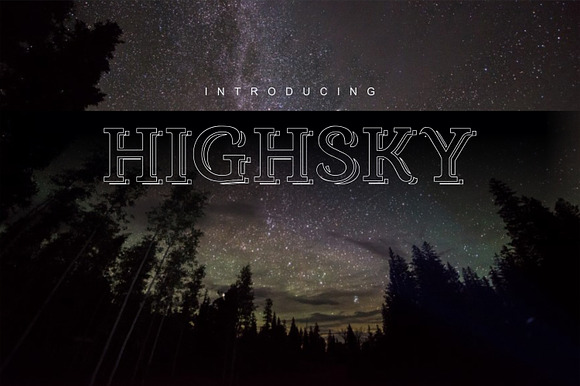
High sky font
Highsky is the visually cursive-style display typeface newly designed font. The letters in this font have mild smooth corners with simplified letter endings. Shadows have been incorporated neatly and this have been done on purpose, as it is looks attractive and could be combined with many other font families. Try different combinations, you will be surprised. Please refer to the list of possible uses we have created to help designers with inspiration and add your idea in comments section below.